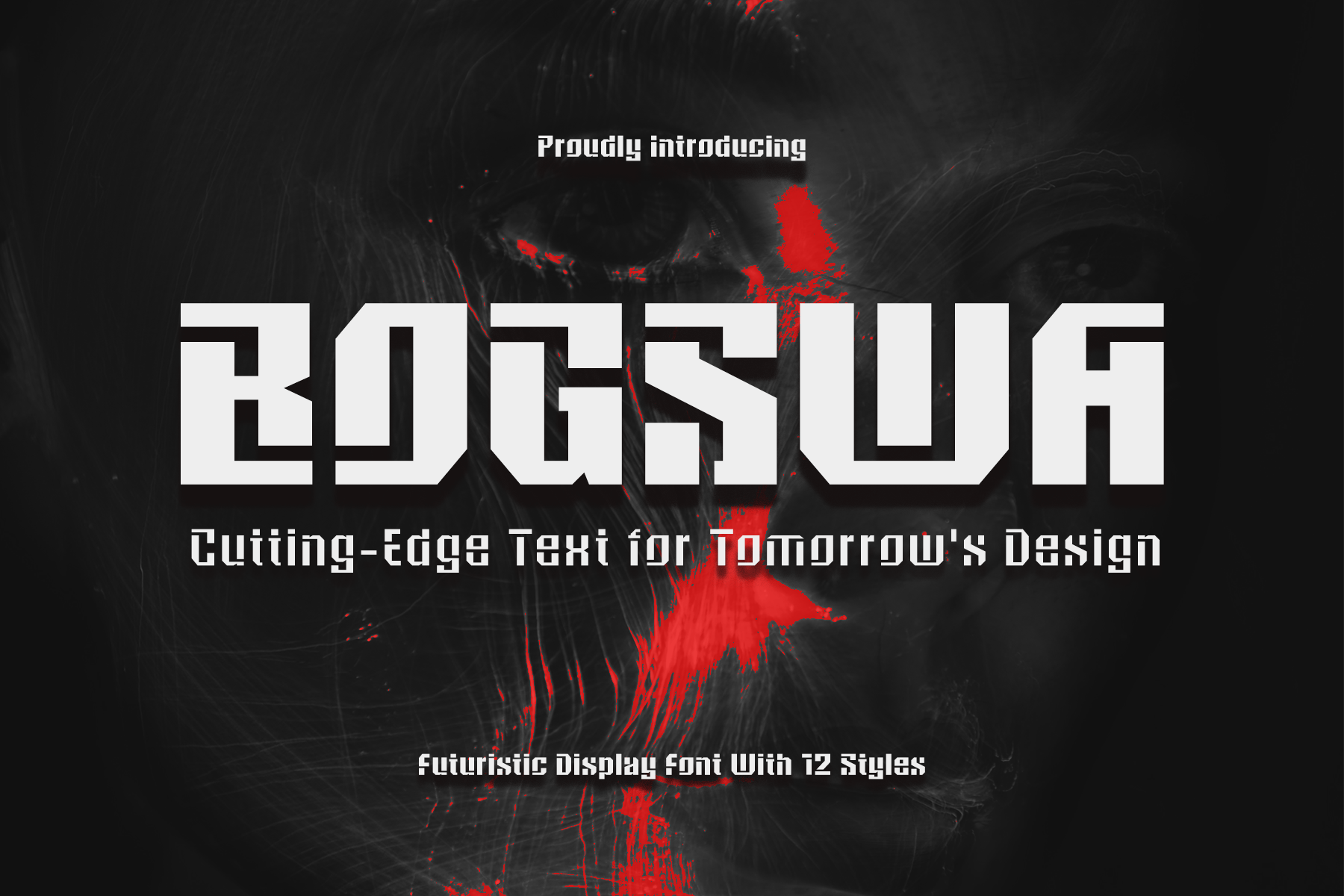
Bogswa - Futuristic Display Sans Font
Bogswa - Futuristic Display Sans Font is perfect for sci-fi branding projects, tech startup identity, futuristic poster design, innovative product launches, digital interface typography, space-themed graphics, cyberpunk aesthetics, gaming industry materials, and cutting-edge advertising campaigns.
What makes Bogswa - Futuristic Display Sans Font exciting is its visionary design that seamlessly blends advanced geometric construction with forward-thinking aesthetics that transport viewers into tomorrow's digital landscape. This revolutionary typeface features sleek letterforms, innovative character details, and futuristic proportions that embody technological progress and digital evolution. The font's cutting-edge personality and sci-fi appeal make it ideal for brands that need to communicate innovation, technological advancement, and future-forward vision through typography that feels like it originated from advanced civilizations and digital frontiers.
Bogswa - Futuristic Display Sans Font family includes multiple sci-fi variations: Regular, Bold, Light, Condensed, Extended, and Cyber versions. Each style maintains the distinctive futuristic aesthetic while offering different levels of technological intensity and visual effects, providing designers with advanced tools for creating innovative typographic systems and cutting-edge display applications that capture tomorrow's design language.
Design professionals choose Bogswa - Futuristic Display Sans Font for its ability to convey innovation and technological advancement through typography alone. The font's futuristic character and sleek construction work exceptionally well in both digital interfaces and large-format sci-fi applications. Its advanced aesthetic appeals to audiences seeking cutting-edge technology and visionary design solutions.
The comprehensive character set includes technological symbols, digital elements, and extensive multilingual support that enhances the futuristic aesthetic. Bogswa - Futuristic Display Sans Font Free Download enables creative teams to experiment with sci-fi combinations and innovative applications before investment.
Whether used for tech startup branding or established innovation campaigns, Bogswa - Futuristic Display Sans Font consistently delivers advanced typography that captures attention, communicates technological progress, and creates memorable visual impact that resonates with audiences seeking futuristic innovation and cutting-edge design excellence.